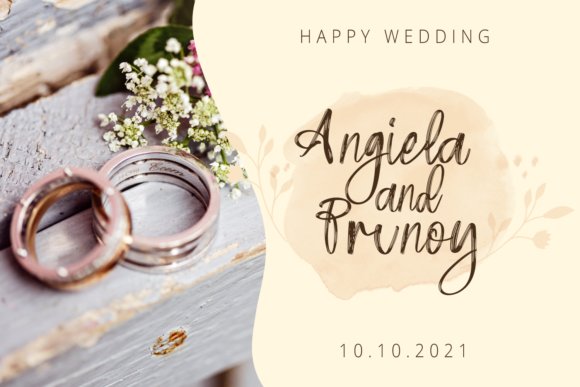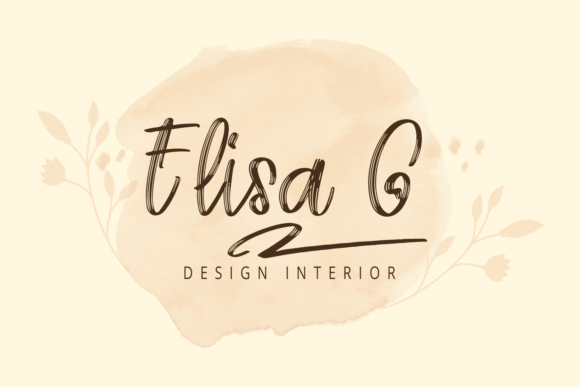
Apologize Font
db-ku.com - Script & Handwritten -- Apologize is a beautiful handwritten font great for any creative project and design, be it inspirational posters or brand promotion. It is also a great font to be used by crafters and graphic artists alike. Add it confidently to your work and make it outstanding!